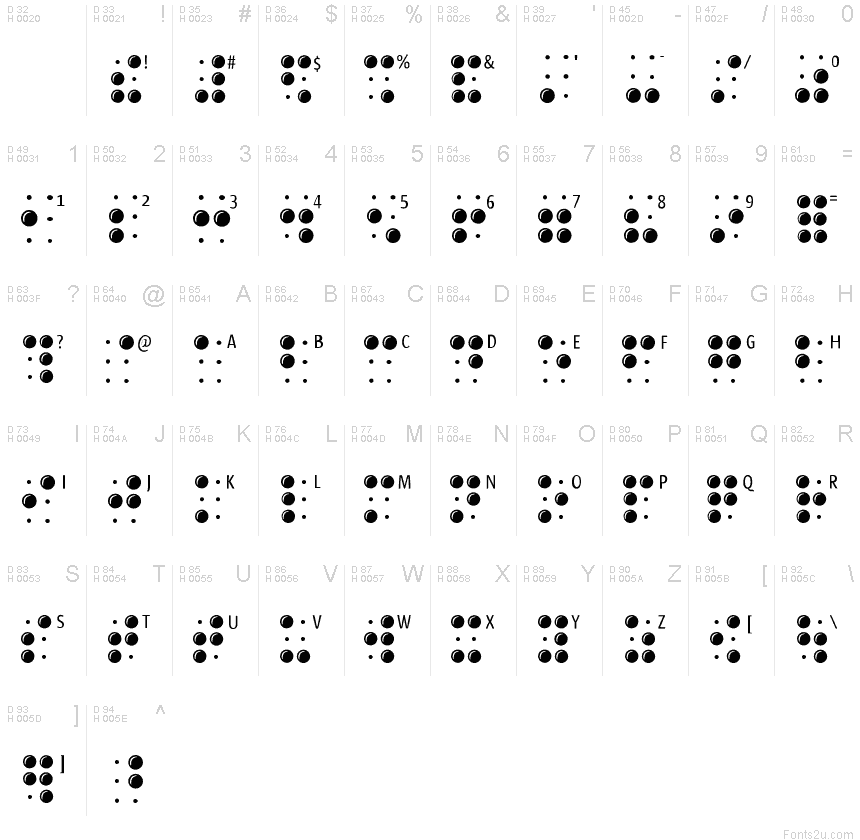
BrailleLatin
BrailleLatin font by M. Klein is a free Braille dingbat typeface that translates text into bold, inky dot cells alongside clear Latin hints. The dots are crisp, evenly spaced, and highly legible, making it easy to distinguish each Braille pattern at a glance while still feeling visually strong on the page.
Using BrailleLatin, you can create teaching materials, accessibility mockups, inclusive posters, language-learning worksheets, wayfinding experiments, and UI icon systems that introduce Braille in a friendly, graphic way. This free font shines when set large so the dot structure is obvious; pair it with a clean sans serif for surrounding body text to keep layouts orderly and readable.